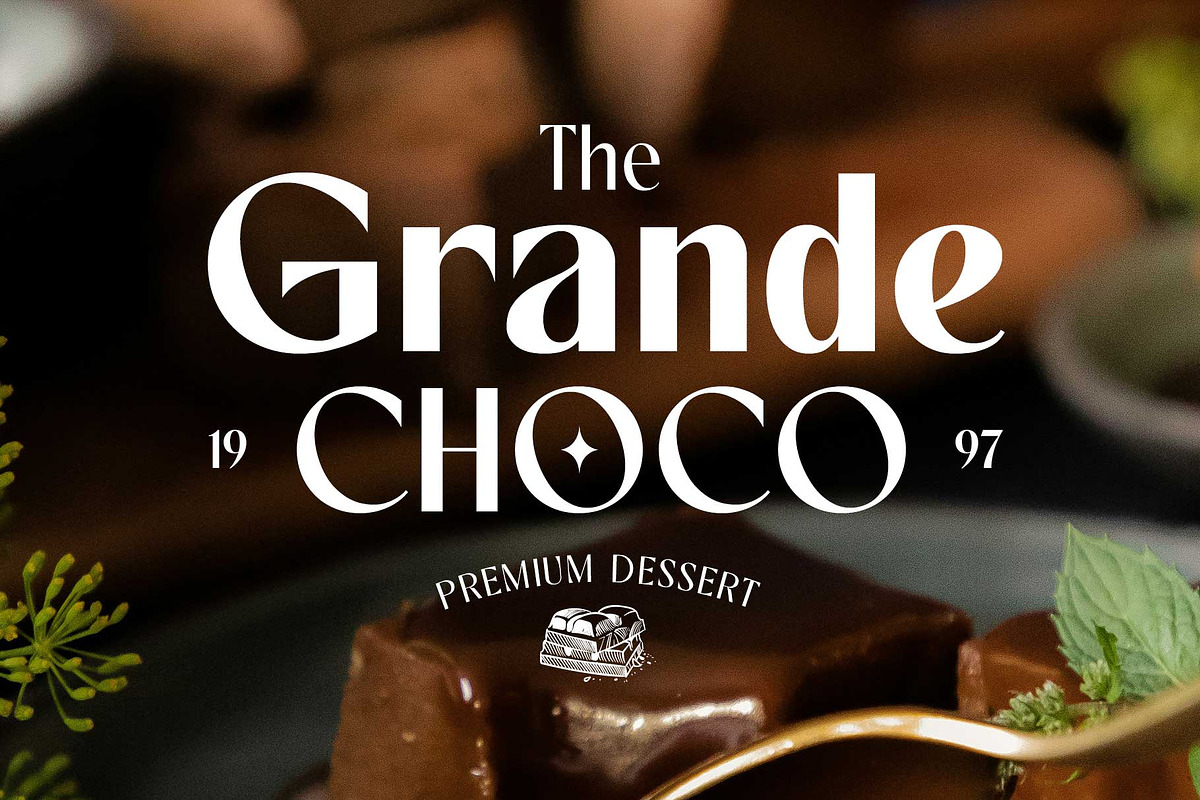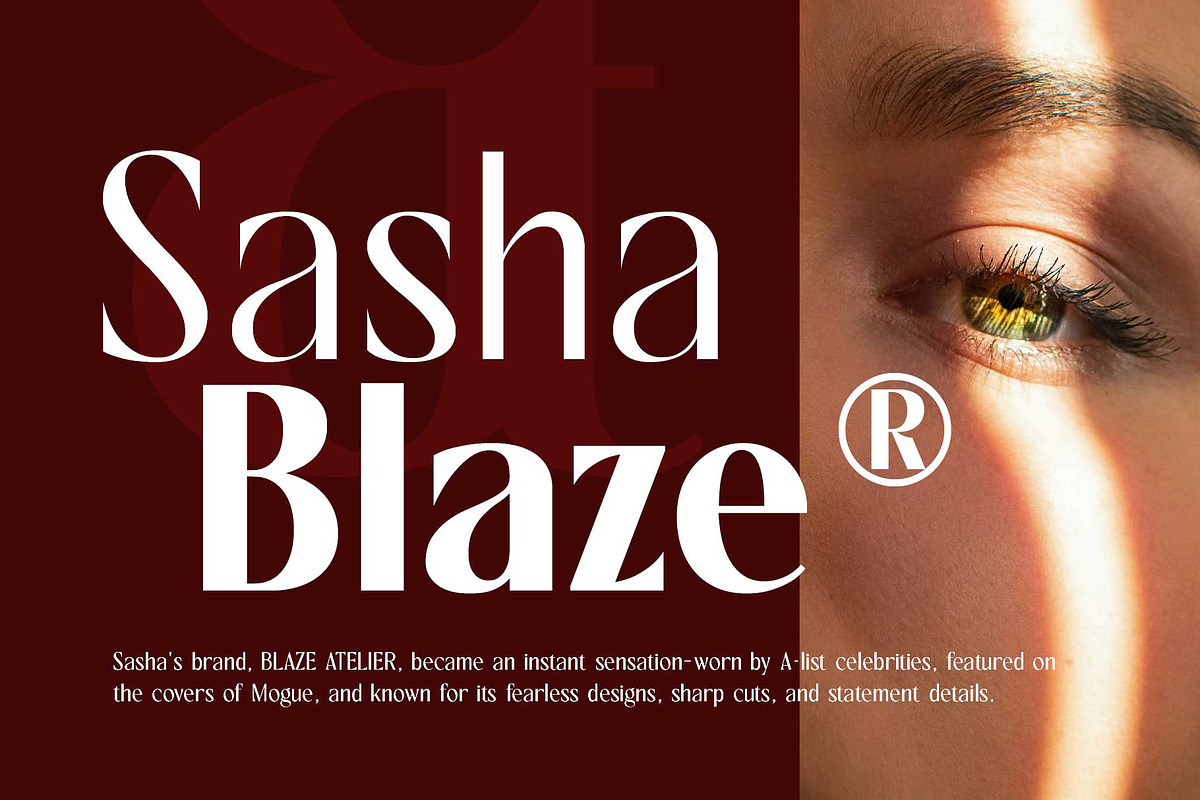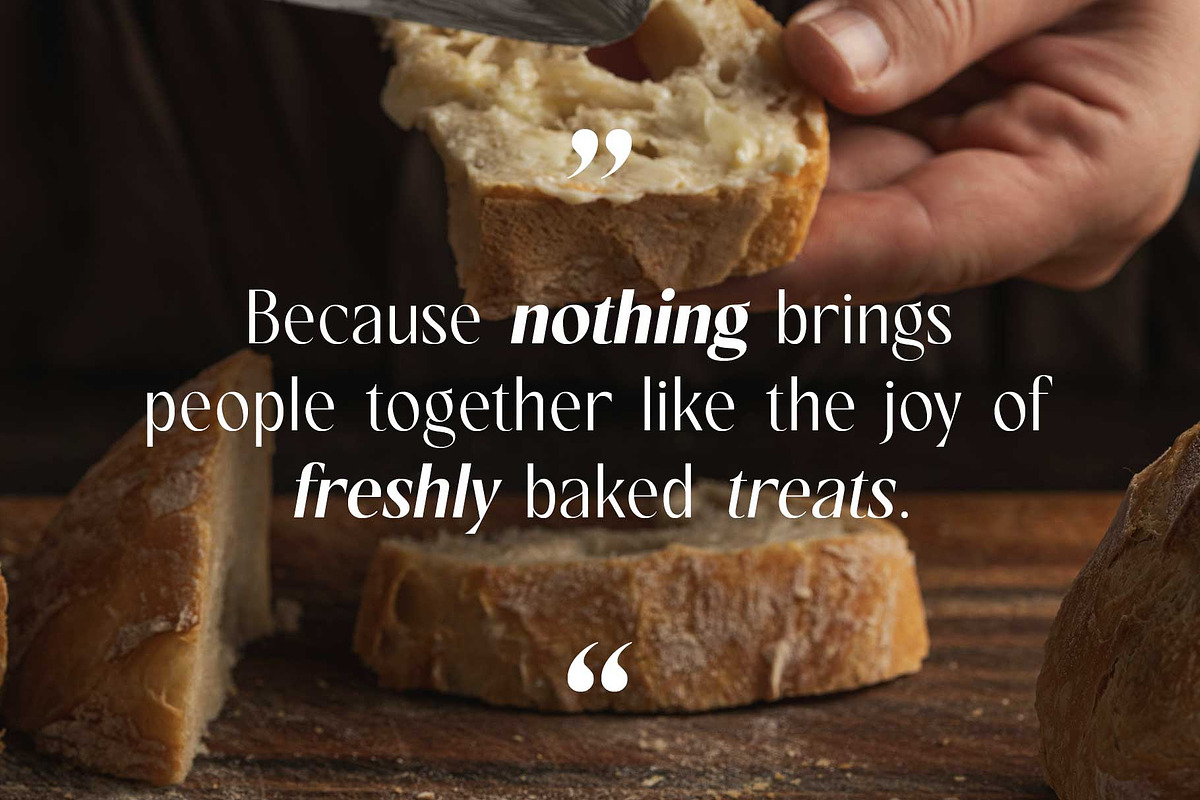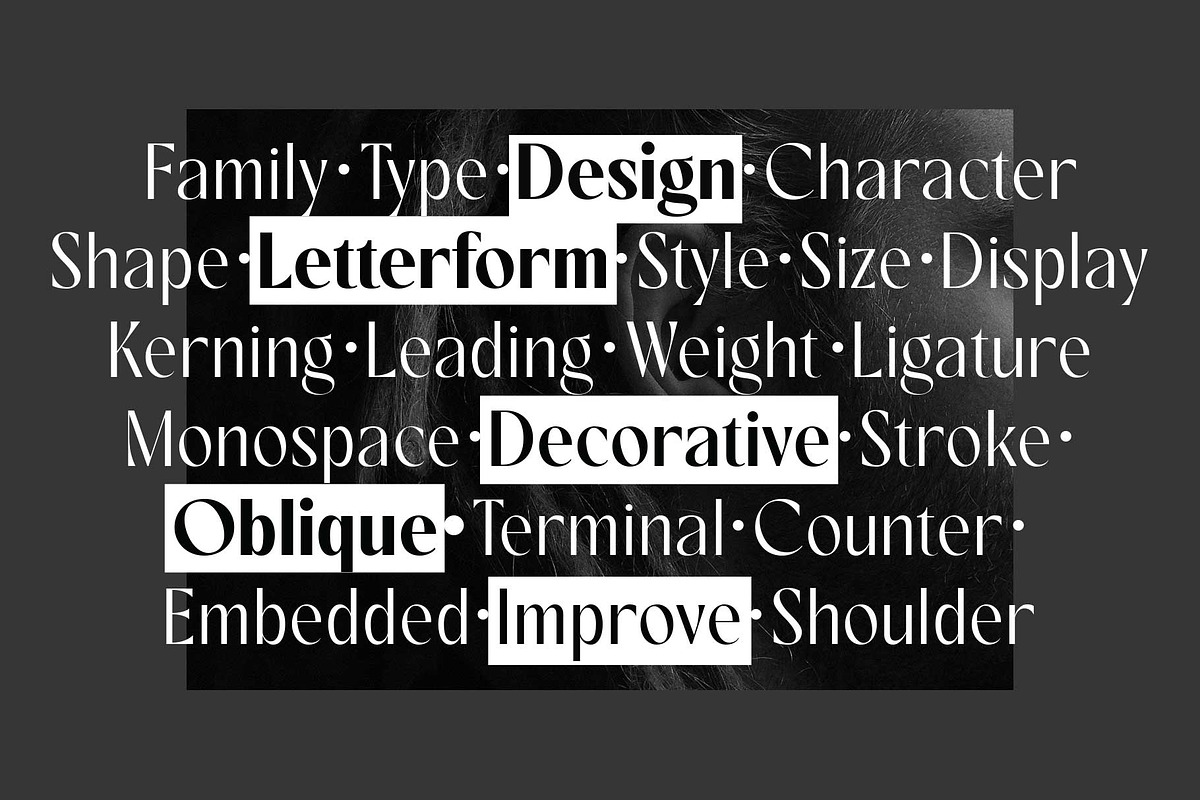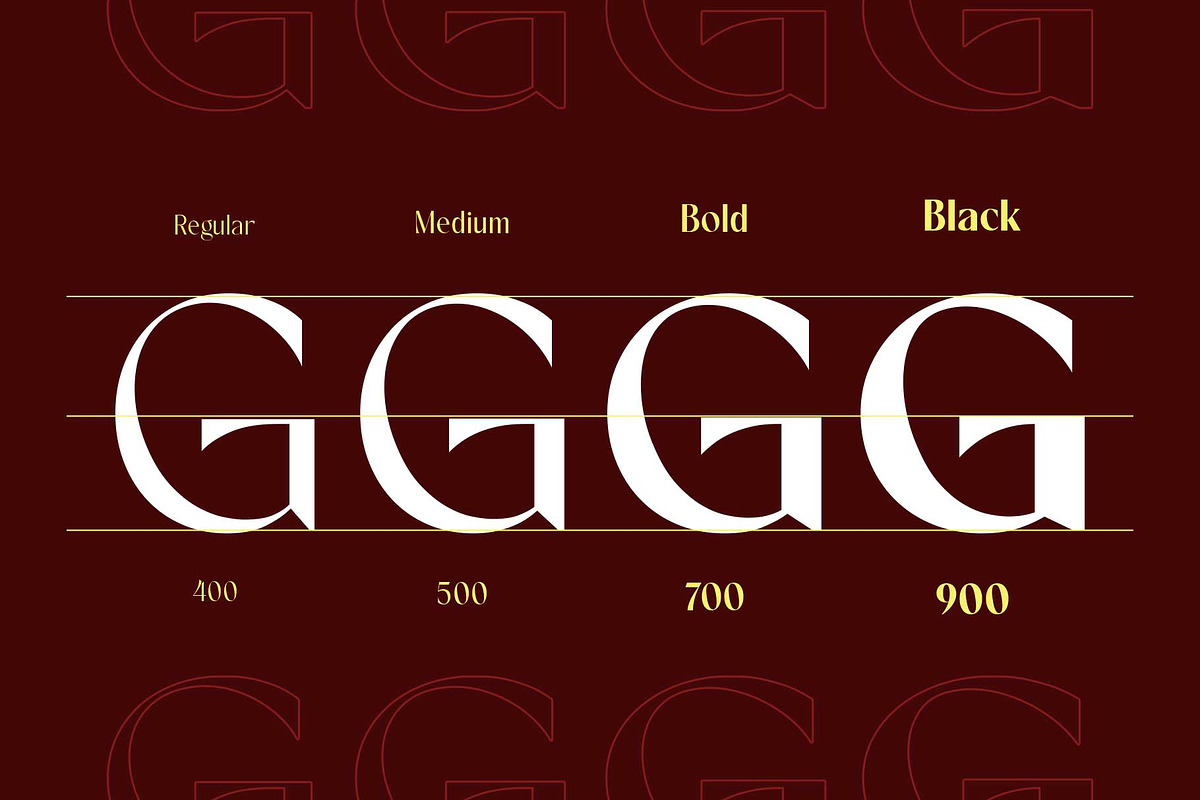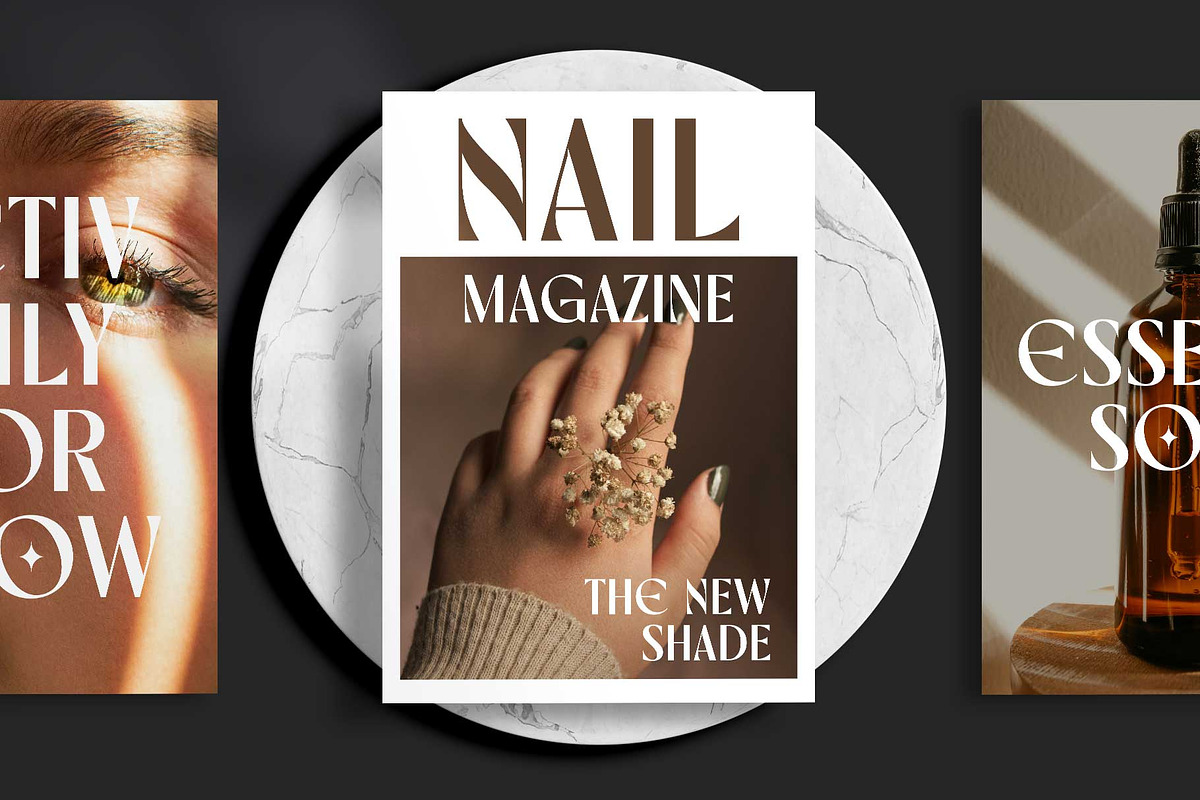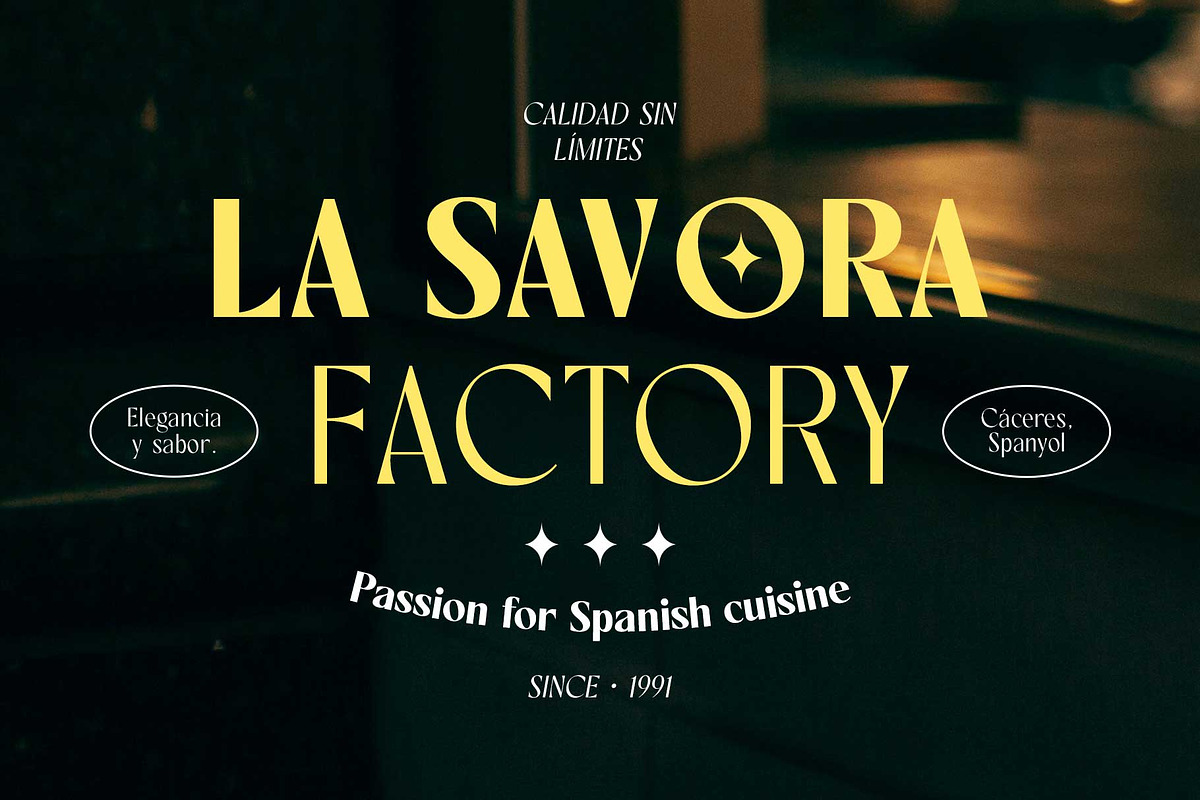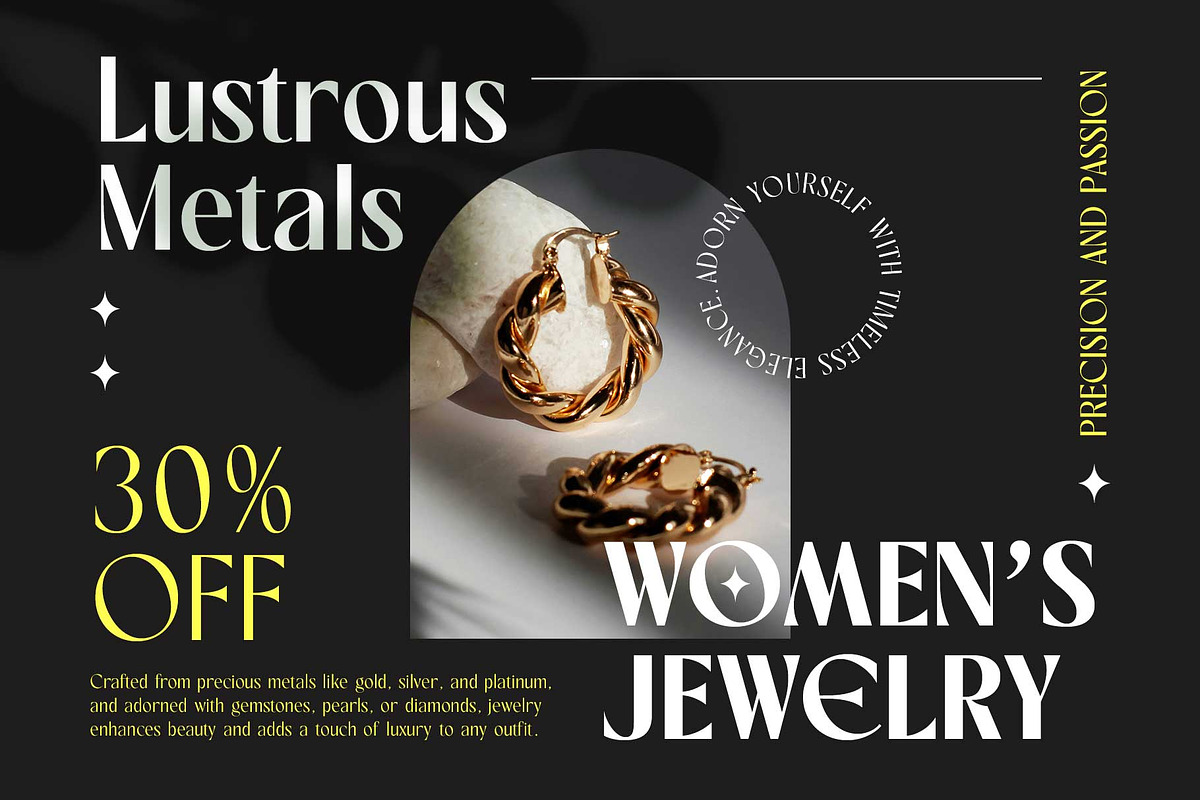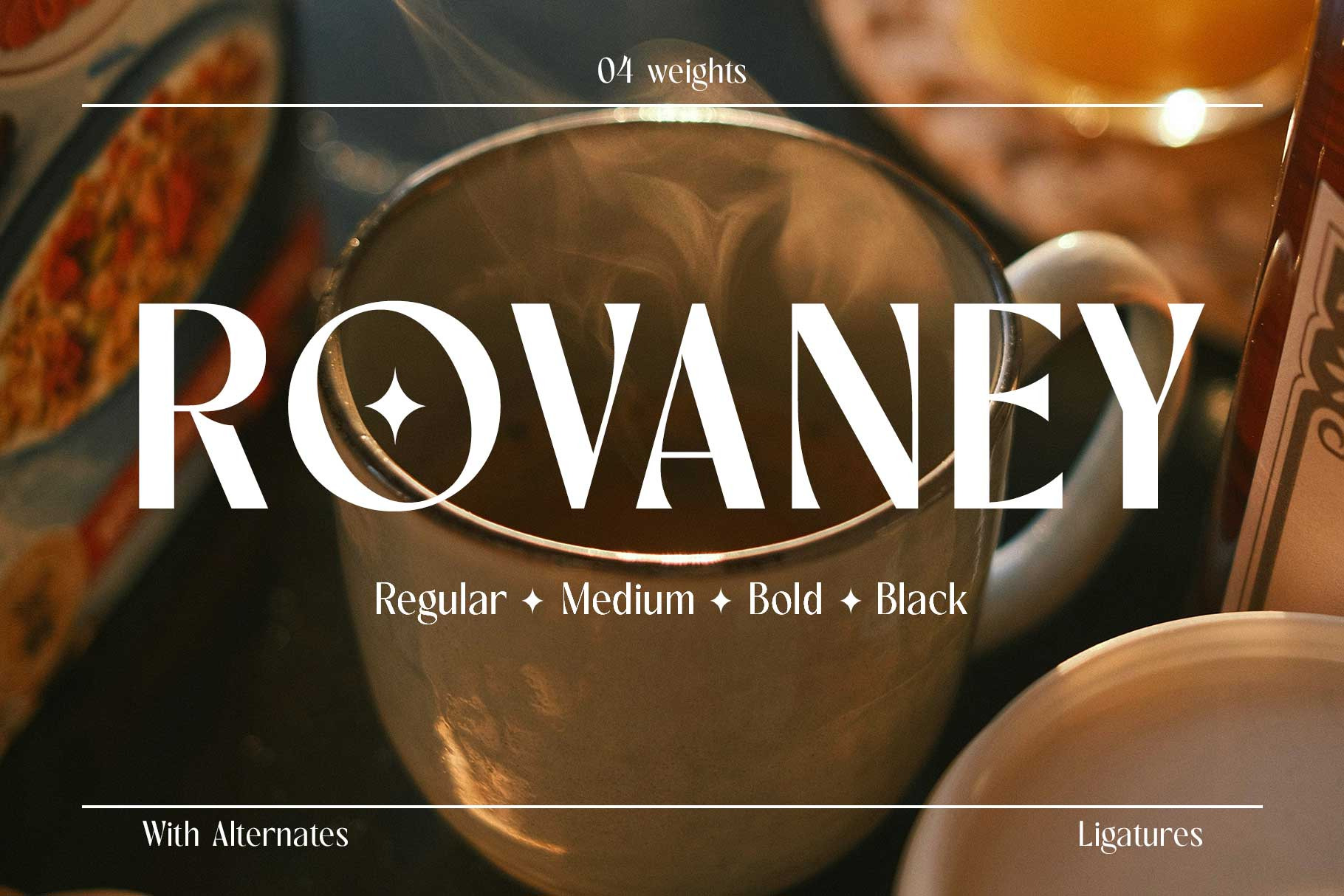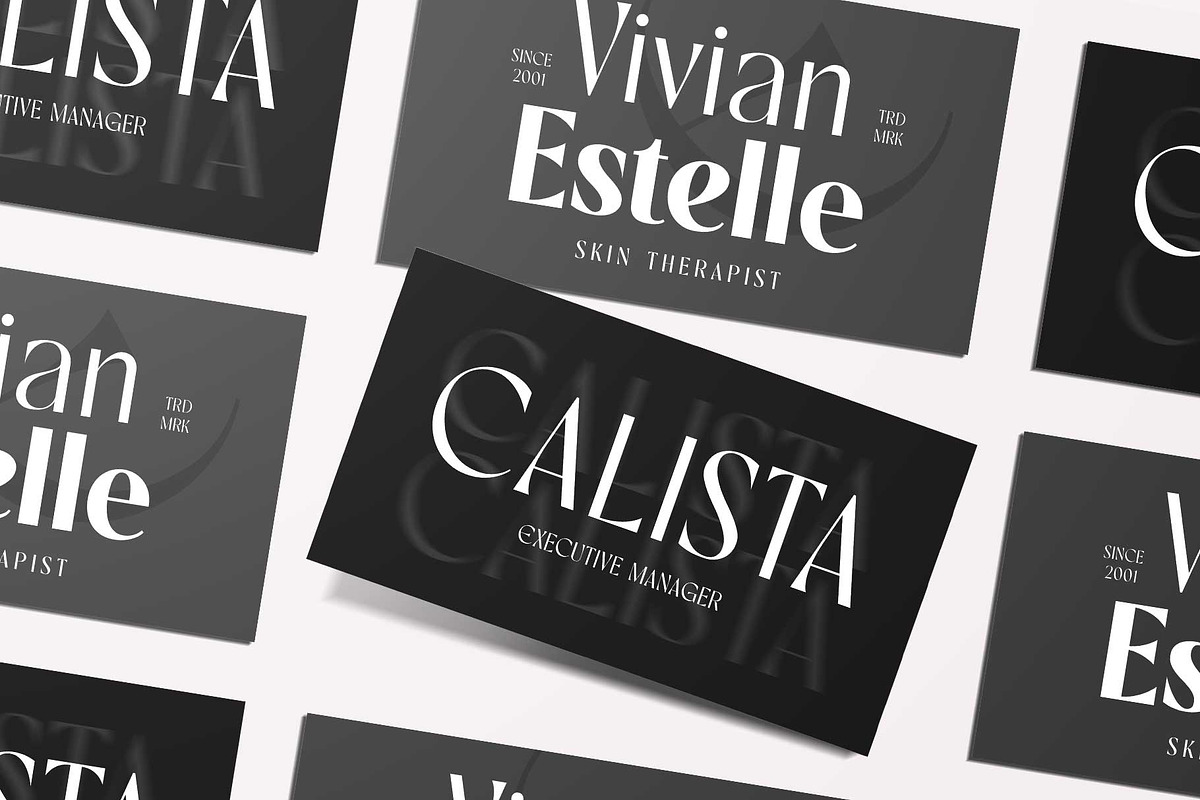
Rovaney - Fancy Font Family
Rovaney is a modern display font available in four weights: Regular, Medium, Bold, and Black. It features a stylish design with elegant curves, serifs, and strokes, making it versatile for various designs.
Rovaney is the perfect choice for you if you're looking for a unique typeface design. You can use this font for logos, branding, cards, weddings, editorials, magazines, labels, fashion, and more.
- Symbols & punctuation
- Stylistic alternates